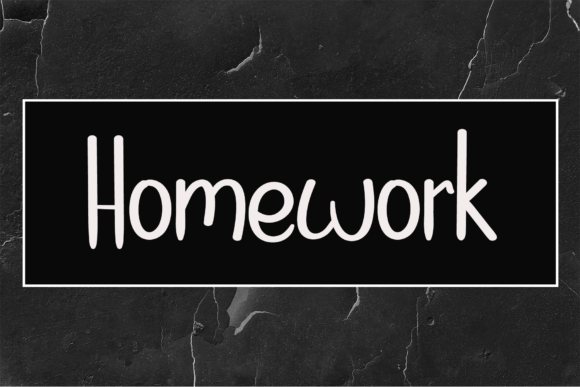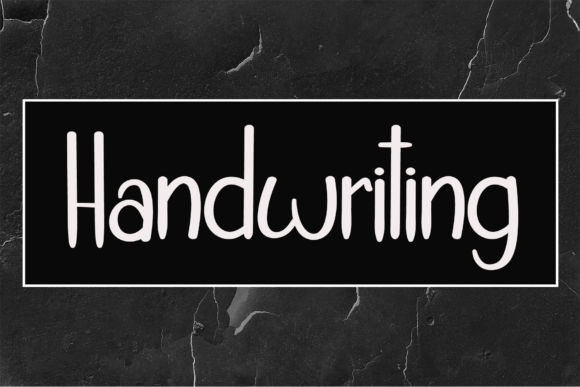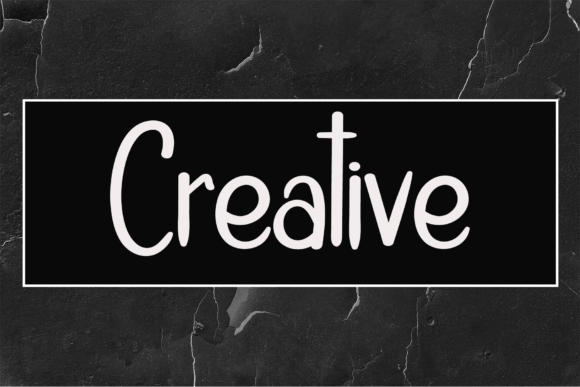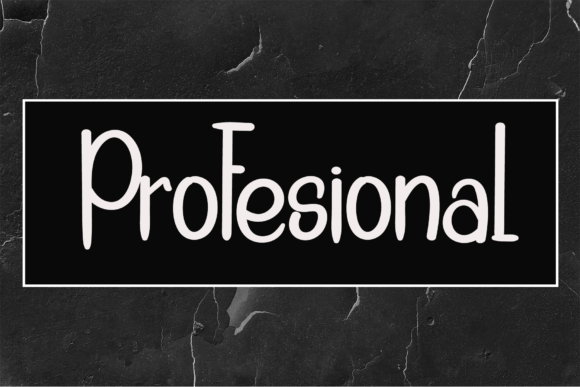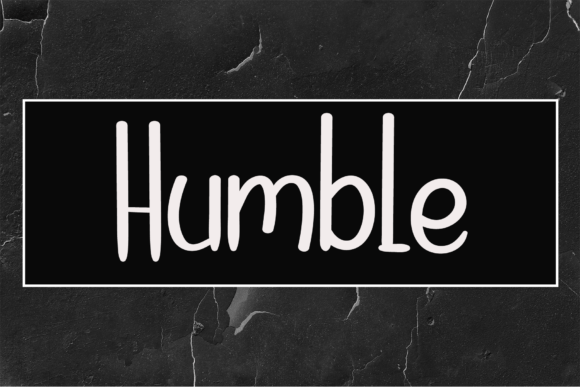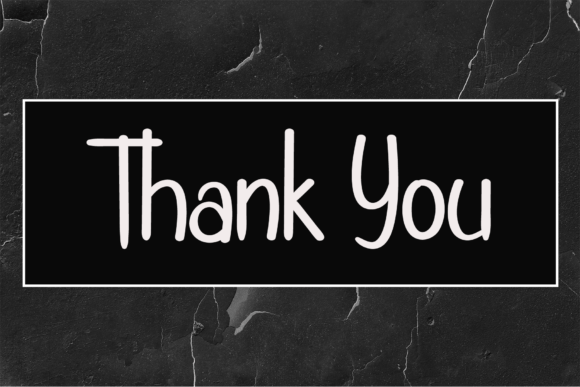
Simple Paper Font
About Simple Paper Font
“Simple Paper” is a stylish handwritten font that brings a contemporary atmosphere with impeccable form, drawing inspiration from timeless classic calligraphy. With a balanced and varied design, this font is crafted to enhance the beauty of your projects.
The contemporary atmosphere of “Simple Paper” is reflected in its modern and stylish appearance. The carefully crafted letters and flowing strokes contribute to the font’s overall aesthetic, making it a versatile choice for a wide range of design projects.
The balanced and varied nature of “Simple Paper” ensures its adaptability to different creative ideas. Whether you’re working on branding, invitations, or any other project that demands a touch of handwritten elegance, this font is designed to elevate the visual appeal of your text.
“Simple Paper” stands as a testament to the enduring charm of classic calligraphy while incorporating a modern twist. It serves as a valuable design asset that brings sophistication to your projects and raises them to new levels of visual excellence.
In summary, “Simple Paper” is more than just a font; it’s a design element that seamlessly blends classic calligraphy with contemporary style. Whether you’re creating refined branding or adding an elegant touch to diverse projects, “Simple Paper” is poised to enhance the beauty of your typography.